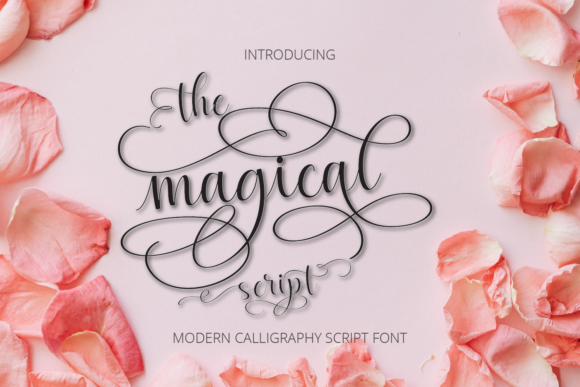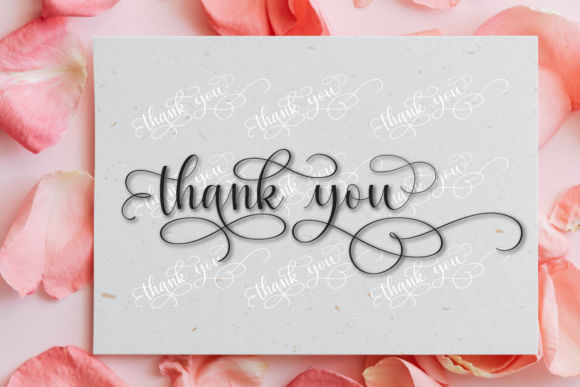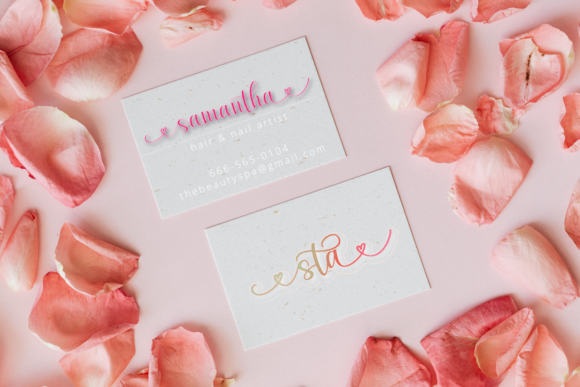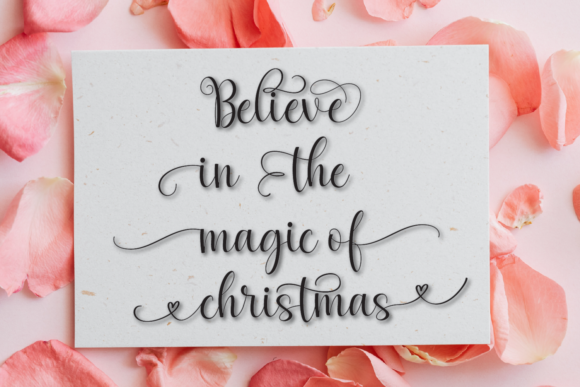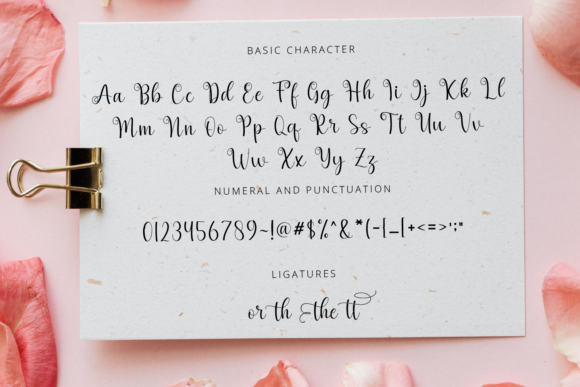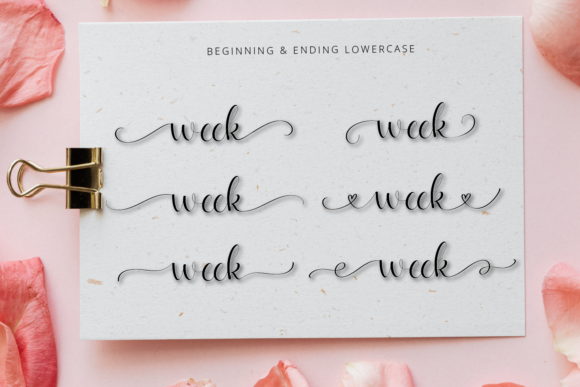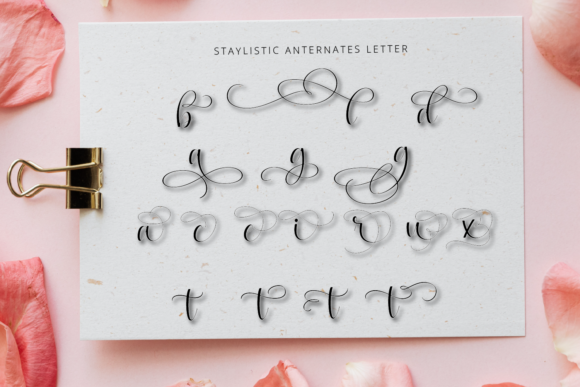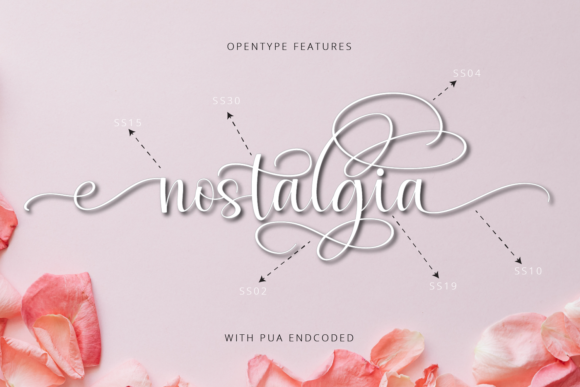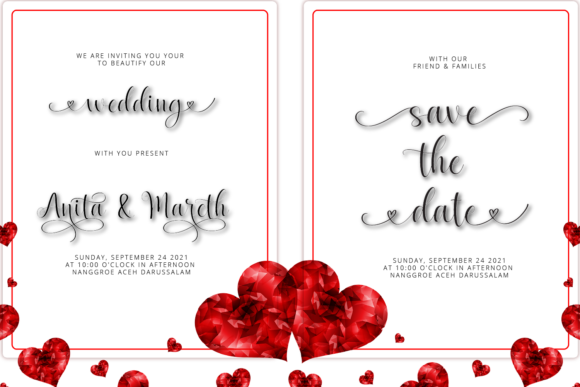
About Magical Script Font
Magical Script is a dazzling script font. It will add a luxury spark to any design project that you wish to create! This font is PUA encoded which means you can access all of the amazing glyphs and ligatures with ease!